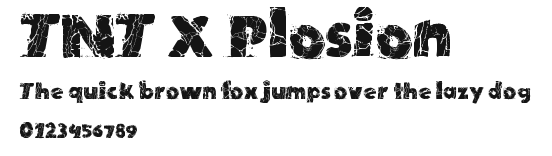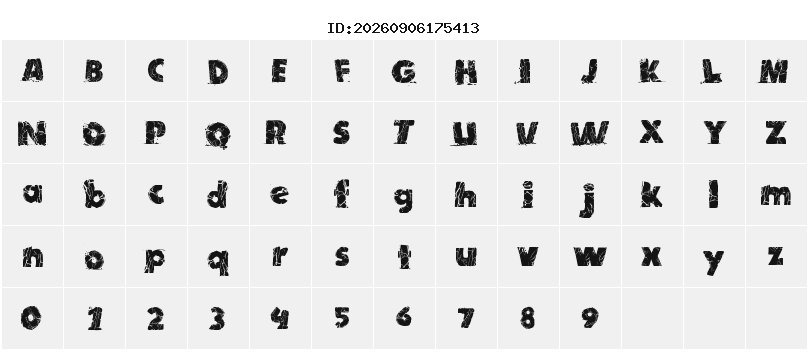
TNT X Plosion Preview
• Font Name: TNT X Plosion
• Font ID: TNT X Plosion:Version 1.00
• Full Font Name: TNT X Plosion
• Version: Version 1.00 August 17, 2012, initial release
• PostScript Name: TNTXPlosion
• Character Count: 257
• Copyright: Copyright 2012 Galdino Otten
• Designer: Galdino Otten
• Manufacturer: Galdino Otten
• Description: Copyright 2012 Galdino Otten
About TNT X Plosion.ttf
TNT X Plosion.ttf is a modern, elegant sans-serif font designed for ultimate readability and visual harmony. Perfect for branding, headlines, web design, and print materials.